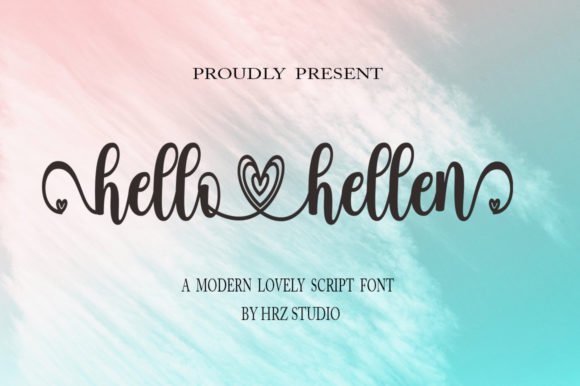
Enter Hello Hellen Font, the stylish and distinct handwritten font that’s about to become your new go-to. With its masterful design, this font has the power to elevate your creative ideas to new heights. Whether you’re a designer, artist, or writer, Hello Hellen Font is the perfect companion for your next project.
With its PUA encoding, you’ll have access to all the glyphs and swashes you need to add a touch of personality to your work. Say hello to Hello Hellen Font, and get ready to unleash your creativity like never before.
- Character Set: This font includes a comprehensive character set, covering Latin, Greek, and Cyrillic alphabets, as well as various punctuation marks and symbols.
- Unique Characteristics: Hello Hellen Font features a distinctive, modern design with clean lines and a friendly feel, making it an excellent choice for use in branding, advertising, and editorial content.
Hello Hellen Font Review
I recently had the chance to work with the Hello Hellen Font, and I must say it’s a unique and interesting choice. Here are my thoughts:
- Playful and whimsical feel: Hello Hellen Font has a distinct, lighthearted quality that can add a touch of personality to any design.
- Good for creative projects: This font is well-suited for children’s books, advertisements, and other creative projects where a playful tone is desired.
- Extensive character set: Hello Hellen Font has a wide range of characters, including accents and punctuation, making it easy to work with for designers.
- Lack of sophistication: While Hello Hellen Font is great for playful designs, it may not be the best choice for more formal or professional projects.
- Limited versatility: This font may not be the best choice for body text or large blocks of text, as it can be difficult to read at smaller sizes.
Overall, I think Hello Hellen Font is a great choice for designers who want to add a touch of whimsy to their projects. While it may not be the best choice for every design, it’s a unique and interesting option that can help a design stand out. With some careful consideration of its limitations, I think this font can be a valuable addition to any designer’s toolkit.
Getting the Most Out of Hello Hellen Font
To get the most out of the Hello Hellen Font, try the following:
- Use it in combination with other decorative fonts to create a unique look.
- Use it in headings and titles to add a touch of elegance.
The Hello Hellen Font is commonly used in:
- Editorial and design publications.